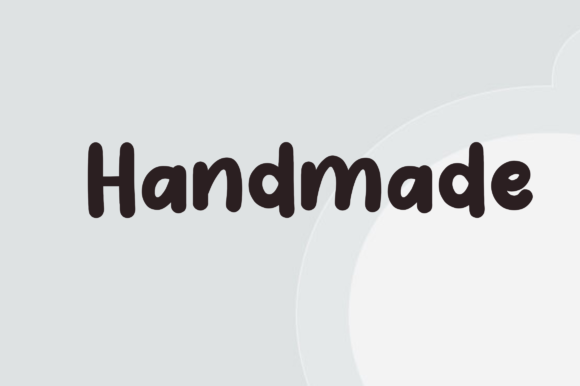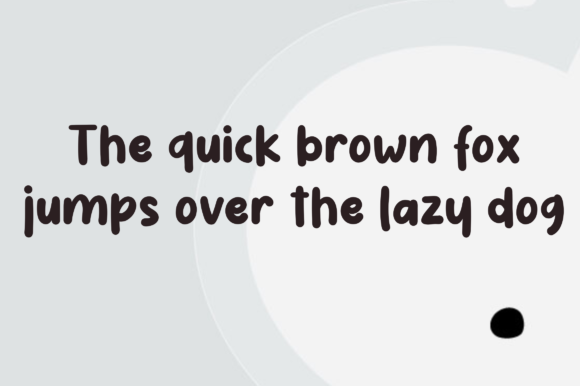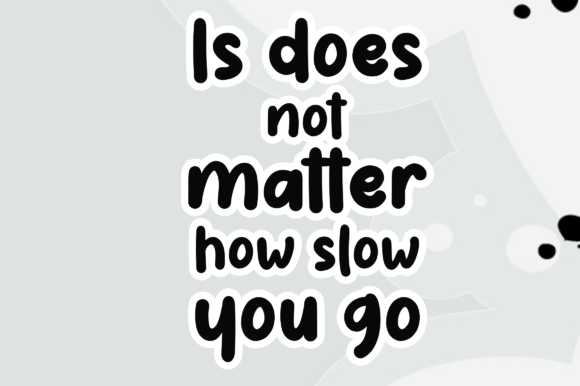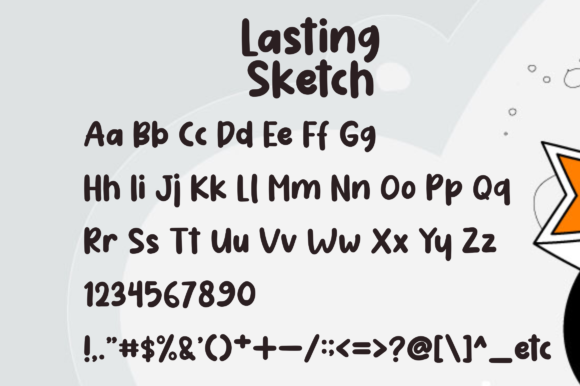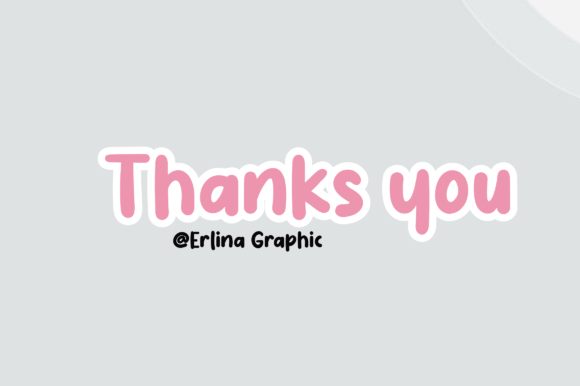
Introduction to Lasting Sketch Font
Who else has ever sat down with a blank piece of paper, a pen in hand, and a burst of creative energy that refuses to be contained? That’s the moment when the magic happens, and ideas start flowing. Whether you’re working on a personal project, a freelance gig, or a creative endeavor for your own business, having the right design resources can make all the difference. That’s where the Lasting Sketch Font comes in – a charming and playful handwritten font that’s about to become your new best friend.
As a designer, you know the importance of having a reliable and high-quality font that can elevate your designs and bring them to life. The Lasting Sketch Font is a valuable addition to any design toolkit, offering a transparent background and a free download option that makes it easily accessible to all. With its whimsical touch and versatility, this font is perfect for a wide range of creative projects, from crafting digital designs to making personalized greeting cards.
Lasting Sketch Font
- High-quality vector design, perfect for creative projects that require a unique touch.
- Unique characteristics: Hand-drawn style, bold lines, and intricate details, making it ideal for artistic and creative projects.
Honest Review: Lasting Sketch Font
I recently stumbled upon the Lasting Sketch Font, and I must say, it’s been a game-changer for my creative projects. The font is perfect for designers who want a high-quality, free download that adds a touch of elegance to their designs.
What works well: ✨ The font is highly customizable, allowing me to adjust the size, color, and style to suit my needs. The transparent background feature is also a huge plus, making it easy to integrate into my design work.
Here are some key features I love about the Lasting Sketch Font:
- High-quality design that looks professional and sleek
- Highly customizable with various size and color options
However, I did encounter a few limitations: ⚠️ The font can be a bit overwhelming for simple designs, and the customization options can be a bit overwhelming for beginners.
Overall, I’m thoroughly impressed with the Lasting Sketch Font. It’s a fantastic design resource that has taken my creative projects to the next level. If you’re looking for a high-quality, free font that’s easy to use, I highly recommend giving it a try.
Lasting Sketch Font
To get the most out of the Lasting Sketch Font, use it for titles, headings, and body text in your design project. It’s also ideal for creating a consistent brand identity across different marketing materials. Some common use cases include creating a logo, designing a brochure, or developing a website.
Alternatives to Lasting Sketch Font
Sketchy Sans
Sketchy Sans is a free, high-quality font suitable for designers working on creative projects that require a clean and modern look. It’s ideal for use on designs with transparent backgrounds.
Compared to Lasting Sketch Font, Sketchy Sans offers a more minimalist approach with a focus on simplicity and elegance. While Lasting Sketch Font excels in its artistic feel, Sketchy Sans provides a more straightforward design experience.
FreePlex is a versatile font that can be used for various design purposes, including logos, typography, and creative projects. It’s a great resource for designers who want a high-quality font without the hassle of licensing fees.
FreePlex shares some similarities with Lasting Sketch Font in terms of its artistic flair, but it’s more adaptable to different design styles. While Lasting Sketch Font is best suited for artistic and creative projects, FreePlex can be used for a wider range of applications.
Yes, the Lasting Sketch Font has a transparent background, making it perfect for designing graphics and illustrations with a subtle, high-quality look. You can easily place the font on top of any image or background without worrying about a distracting border.